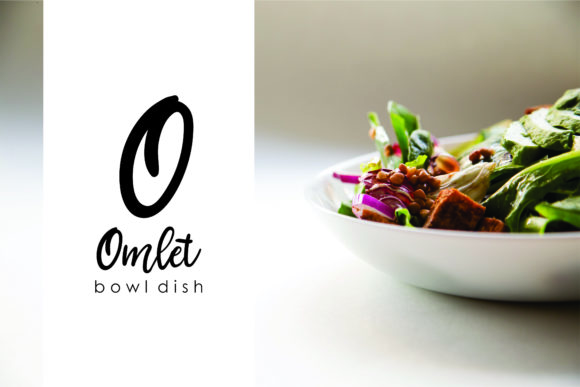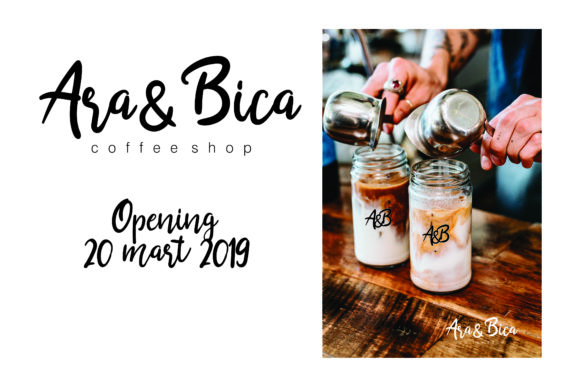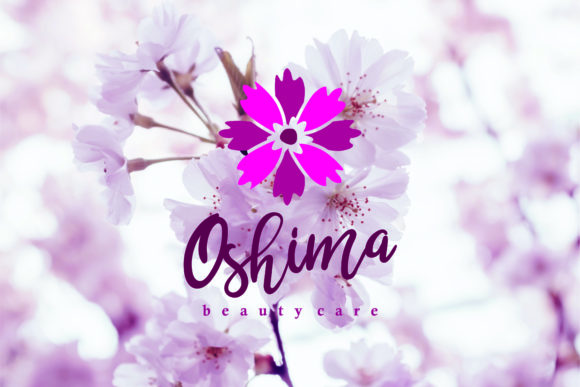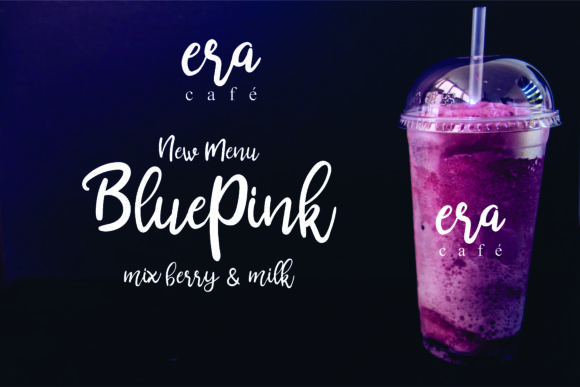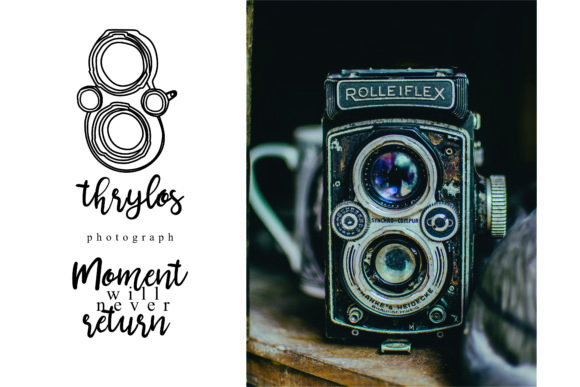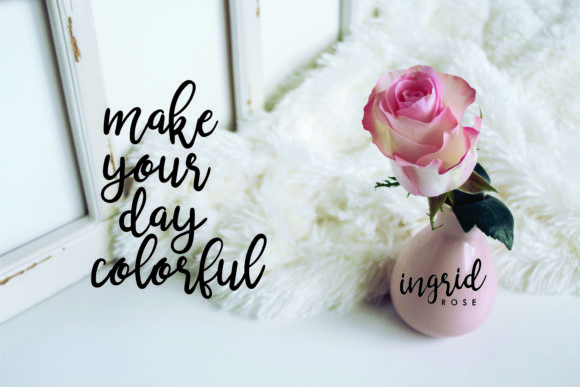
Introducing the Avocado Beat Font: Bringing a Touch of Nature to Your Designs
The Avocado Beat font is a unique and natural typeface that has been making waves in the design community. Its organic and earthy feel makes it perfect for adding a natural touch to your layouts, branding, logos, quotes, and much more. In this article, we’ll dive into the world of the Avocado Beat font, exploring its features, benefits, and uses, as well as provide tips and inspiration for designers and crafters looking to incorporate this beautiful font into their work.
A Natural Typeface for the Modern Designer
The Avocado Beat font is a refreshing departure from traditional typefaces. Its natural, hand-crafted look and feel make it an excellent choice for designers looking to add a touch of whimsy and personality to their designs. Whether you’re working on a branding project, creating a logo, or designing a quote, the Avocado Beat font is sure to bring a sense of earthiness and authenticity to your work.
Key Features of the Avocado Beat Font
- Natural and Organic Look: The Avocado Beat font boasts a unique, hand-drawn look that gives it a natural and organic feel.
- Versatile: This font is perfect for a wide range of design projects, from branding and logos to quotes and more.
- Easy to Read: Despite its unique look, the Avocado Beat font is easy to read, making it perfect for body text and headlines.
- Highly Customizable: The font comes with a range of customization options, allowing you to tailor it to your specific design needs.
Benefits of Using the Avocado Beat Font
So why choose the Avocado Beat font for your next design project? Here are just a few benefits of using this beautiful typeface:
- Adds a Touch of Nature: The Avocado Beat font brings a sense of earthiness and naturalness to your designs, making it perfect for brands and projects that want to convey a sense of sustainability and eco-friendliness.
- Stand Out from the Crowd: With its unique look and feel, the Avocado Beat font is sure to help your designs stand out from the crowd.
- Perfect for Crafting and DIY Projects: The Avocado Beat font is also perfect for crafters and DIY enthusiasts looking to add a personal touch to their projects.
Using the Avocado Beat Font in Your Designs
So how can you use the Avocado Beat font in your designs? Here are a few ideas to get you started:
- Branding and Logos: Use the Avocado Beat font to create a natural and earthy brand identity.
- Quotes and Typography: The Avocado Beat font is perfect for creating beautiful and inspiring quotes.
- Packaging and Labels: Add a touch of naturalness to your packaging and labels with the Avocado Beat font.
- Crafting and DIY Projects: Use the Avocado Beat font to add a personal touch to your crafting and DIY projects.
Here are a few tips and inspiration to help you get the most out of the Avocado Beat font:
- Experiment with Different Colors: Try pairing the Avocado Beat font with different colors to create a unique and eye-catching look.
- Mix and Match with Other Fonts: Don’t be afraid to mix and match the Avocado Beat font with other fonts to create a unique and interesting look.
- Use it for Headlines and Body Text: The Avocado Beat font is versatile enough to be used for both headlines and body text.
The Avocado Beat font is a beautiful and natural typeface that is perfect for designers and crafters looking to add a touch of earthiness to their work. With its unique look and feel, versatility, and ease of use, this font is sure to become a favorite in your design toolkit. So why not give it a try and see how it can elevate your designs to the next level?